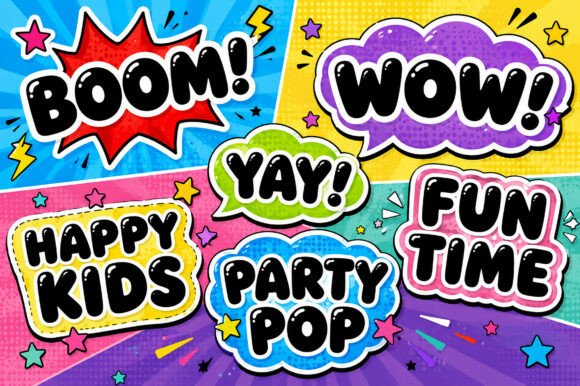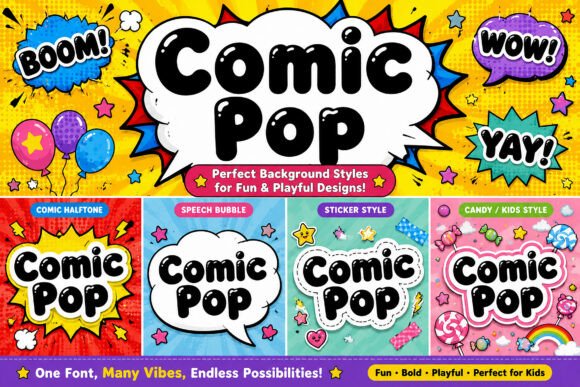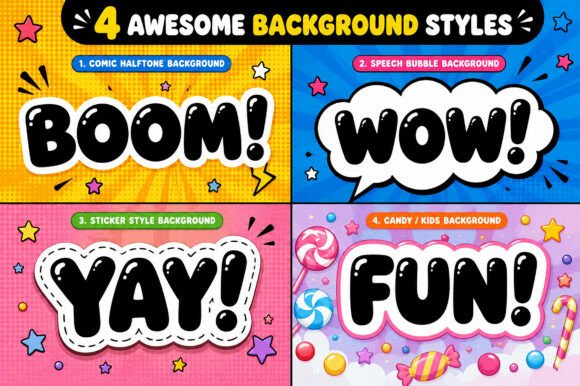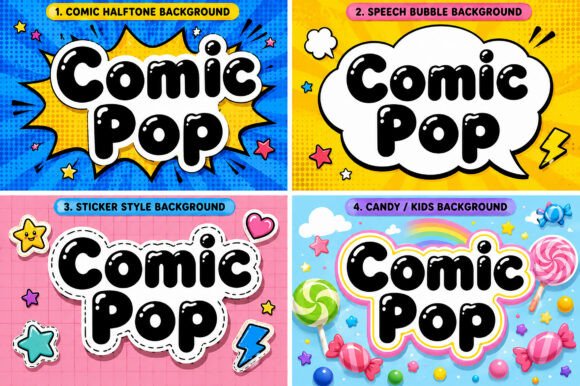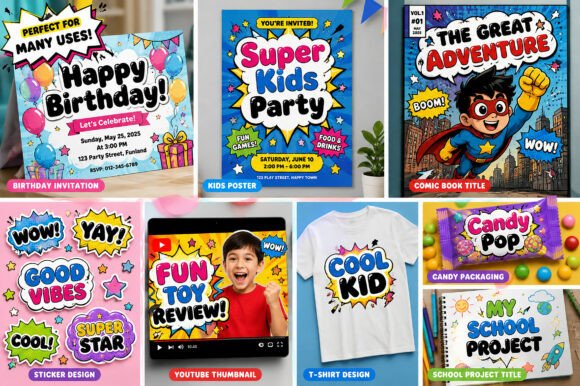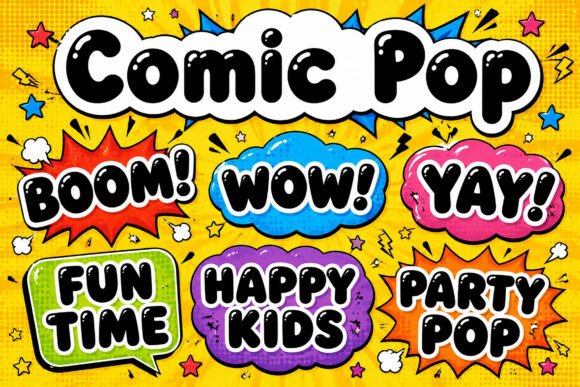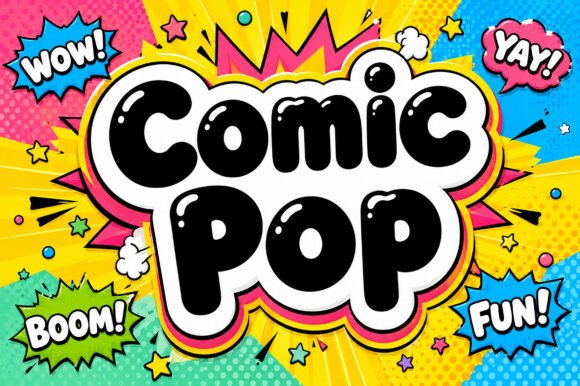
Unleash the Power of Comic Pop Font: Elevate Your Designs with Explosive Visuals
Are you tired of using ordinary fonts that fail to capture the attention of your audience? Look no further than Comic Pop, a high-octane display font designed to make your layouts explode directly off the page. This ultra-thick typeface is engineered for ultimate visual volume, featuring plump, heavy-set balloon letterforms that demand attention.
The Anatomy of Comic Pop
Comic Pop’s design is a masterclass in visual excess, with a range of features that work together to create an unparalleled level of visual impact. The font’s letterforms are accented with glossy, white hand-drawn highlights that mimic a professional airbrush finish, giving them a sleek and polished appearance. Enclosed within a heavy cloud-like white boundary line, the letterforms seem to pop off the page, while a multi-layered neon yellow and pink comic-book blast outline adds an extra layer of depth and visual interest.
The Power of Visual Volume
Comic Pop’s unyielding structural weight commands absolute layout authority, making it the perfect choice for designs that need to shout for attention. Whether you’re creating animated streaming overlays, youth sports packaging, action-packed comic book titles, sticker designs, or festival promotional graphics, Comic Pop delivers an incredible sense of legendary energetic fun and polished pop-art mastery to your brand identity.
As a designer or crafter, you know how important it is to have a font that can help your designs stand out from the crowd. Comic Pop is an extraordinary match for a wide range of projects, including:
- Animated streaming overlays: Add a burst of energy to your live streams with Comic Pop’s bold, eye-catching letterforms.
- Youth sports packaging: Give your sports branding a fun, youthful vibe with Comic Pop’s playful, dynamic design.
- Action-packed comic book titles: Bring your comic book titles to life with Comic Pop’s explosive, attention-grabbing visuals.
- Sticker designs: Create stickers that demand attention with Comic Pop’s bold, colorful letterforms.
- Festival promotional graphics: Make your festival promotional graphics pop with Comic Pop’s vibrant, energetic design.
Why Choose Comic Pop?
So why choose Comic Pop over other display fonts? Here are just a few reasons:
- Unparalleled visual impact: Comic Pop’s unique design features work together to create an unparalleled level of visual impact, making it perfect for designs that need to shout for attention.
- Versatility: Comic Pop is a versatile font that can be used for a wide range of projects, from animated streaming overlays to festival promotional graphics.
- Easy to use: Despite its bold, complex design, Comic Pop is easy to use and can be incorporated into your designs with minimal effort.
- High-quality design: Comic Pop is a high-quality font designed with care and attention to detail, ensuring that it looks great in any context.
In conclusion, Comic Pop is a powerful display font that can help take your designs to the next level. With its bold, eye-catching letterforms and unparalleled visual impact, it’s the perfect choice for designers and crafters who want to create designs that demand attention. Whether you’re working on a comic book title, a festival promotional graphic, or simply want to add some excitement to your brand identity, Comic Pop is an excellent choice.